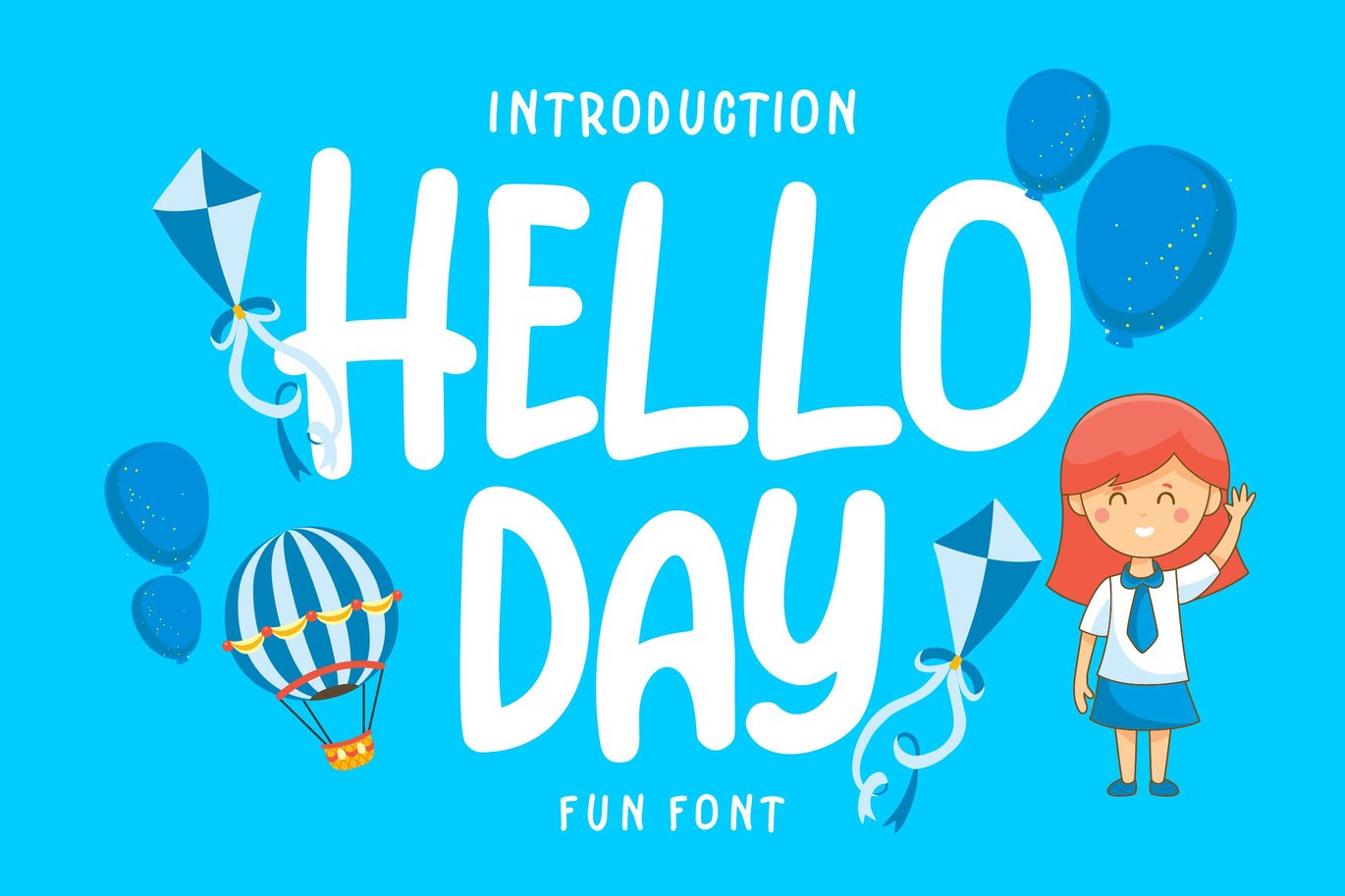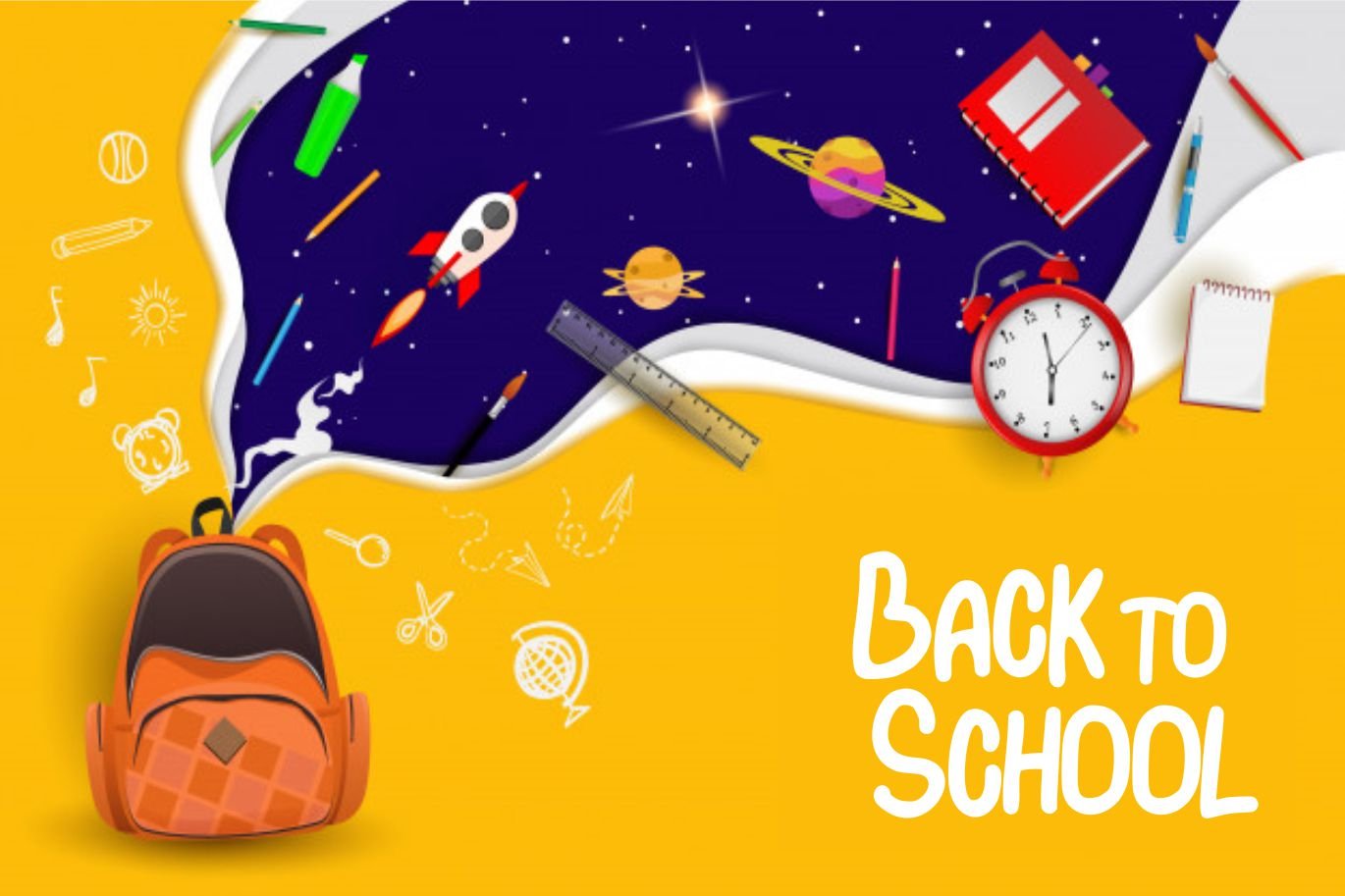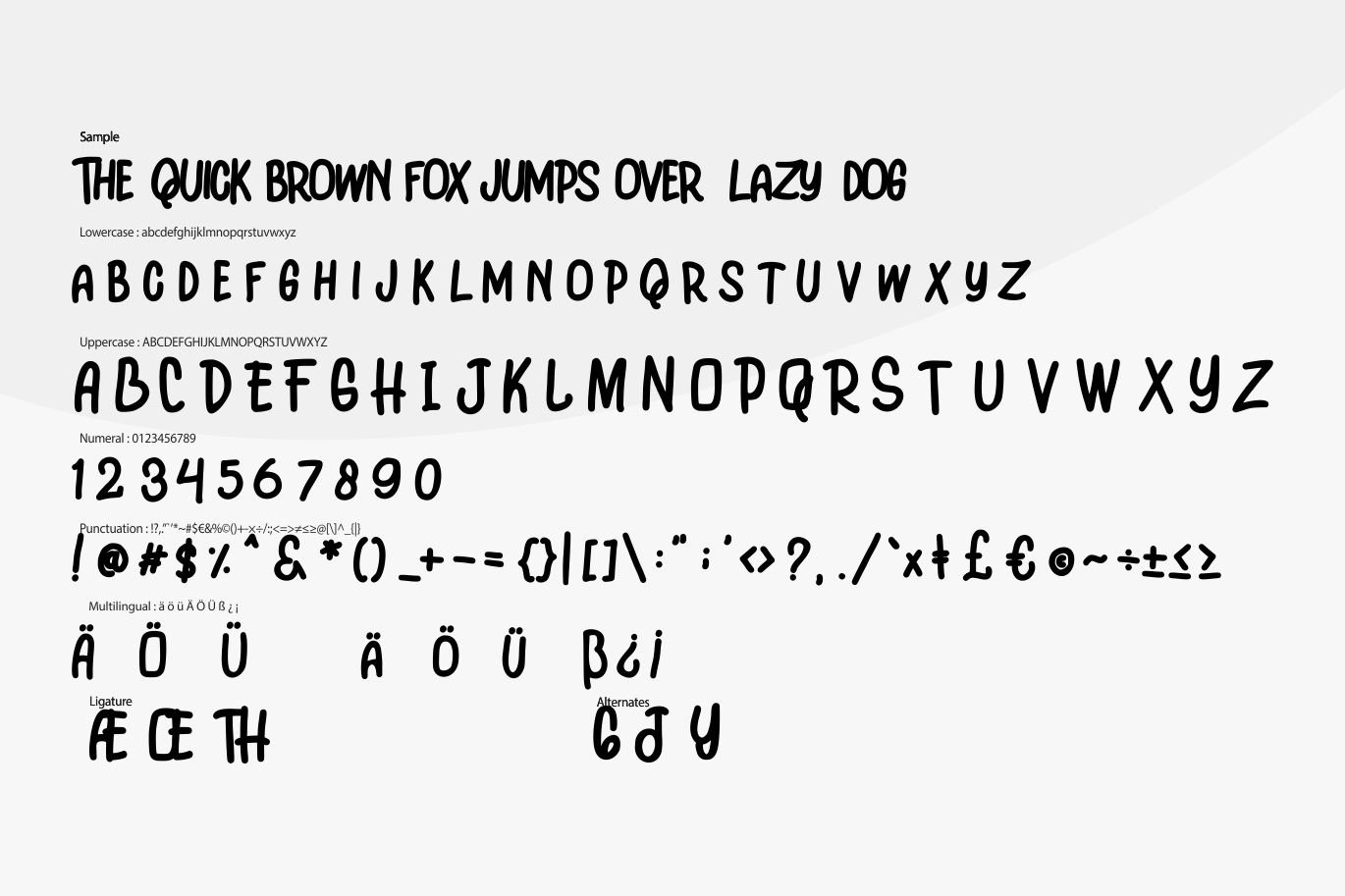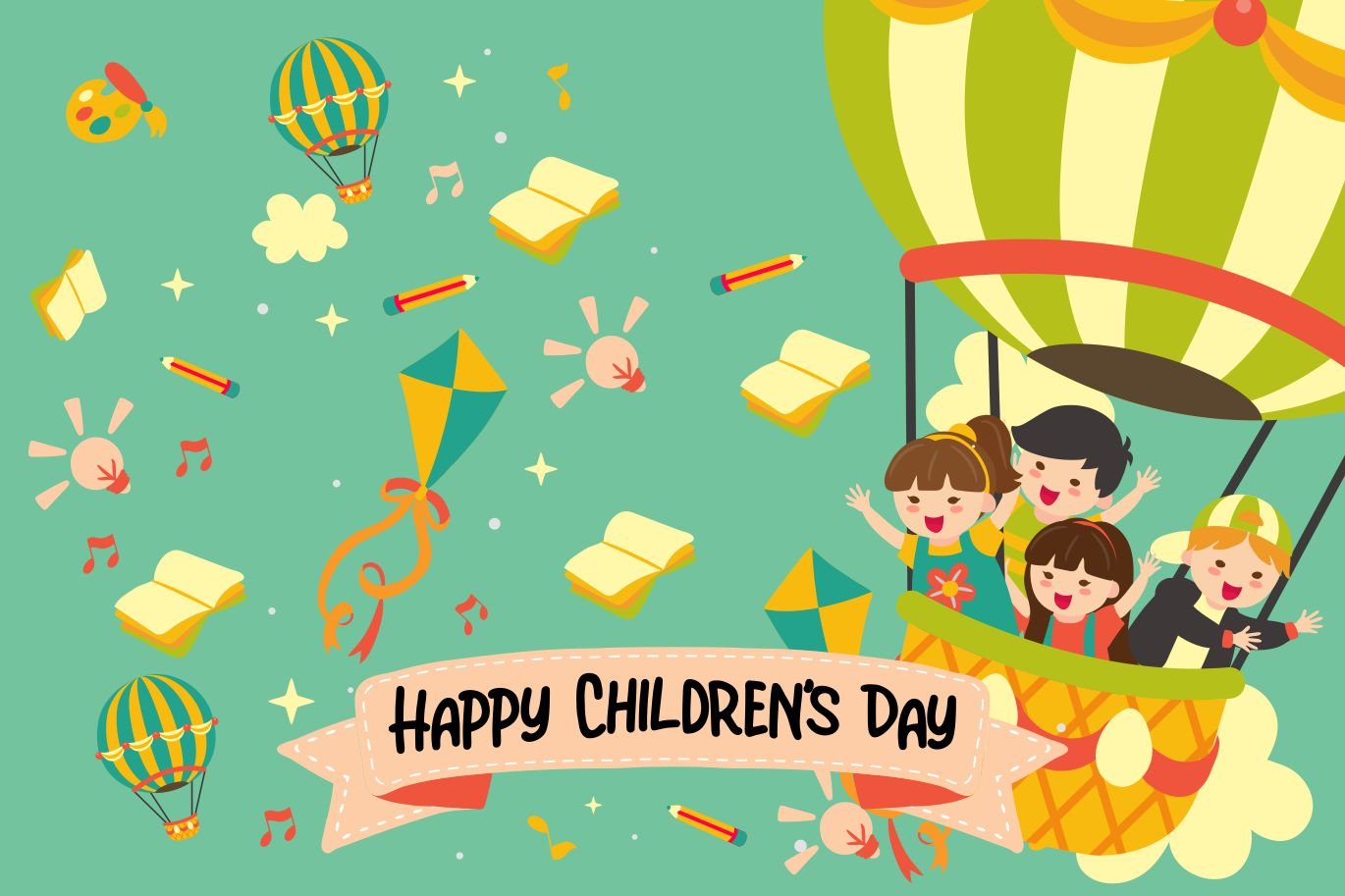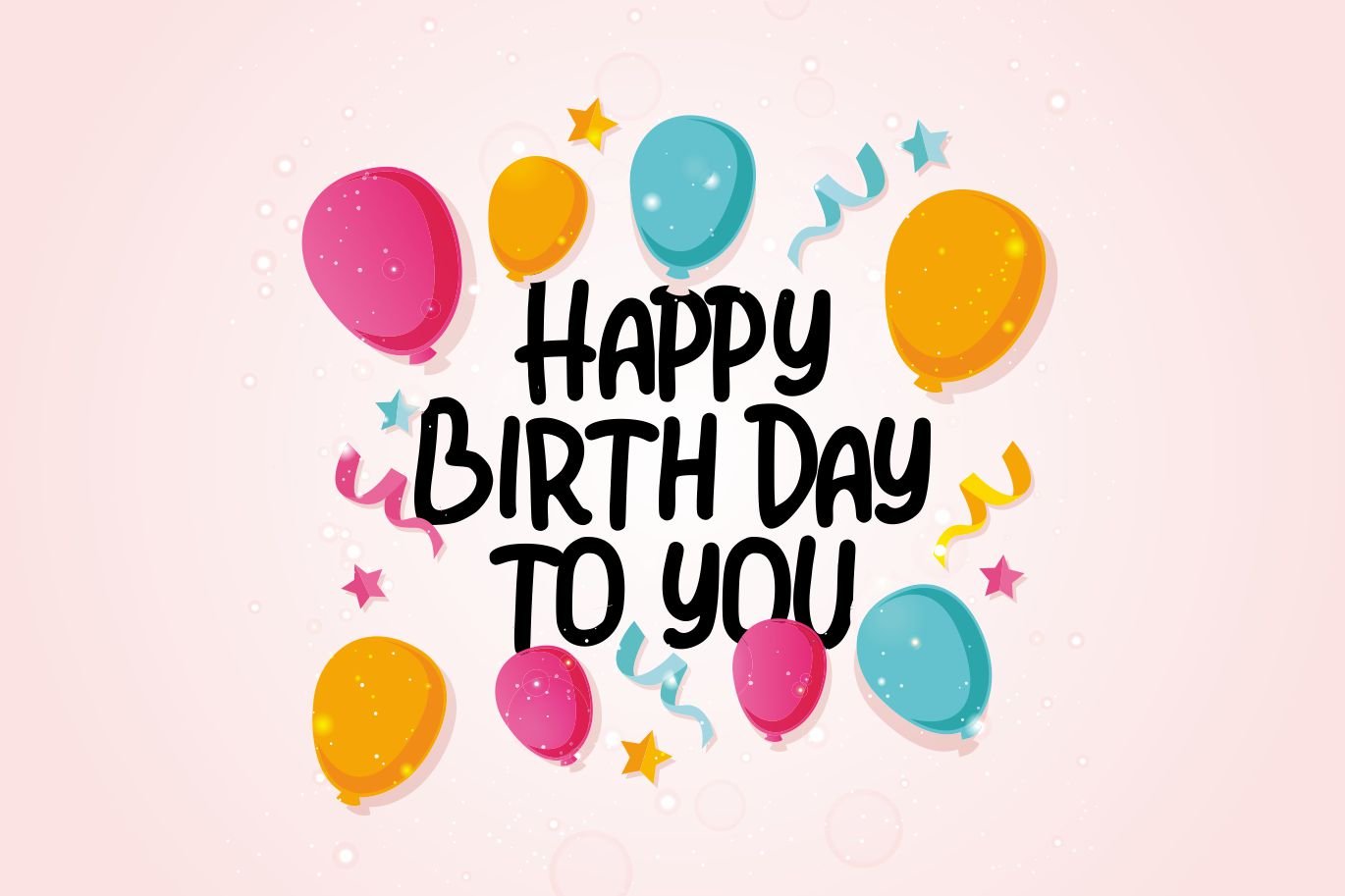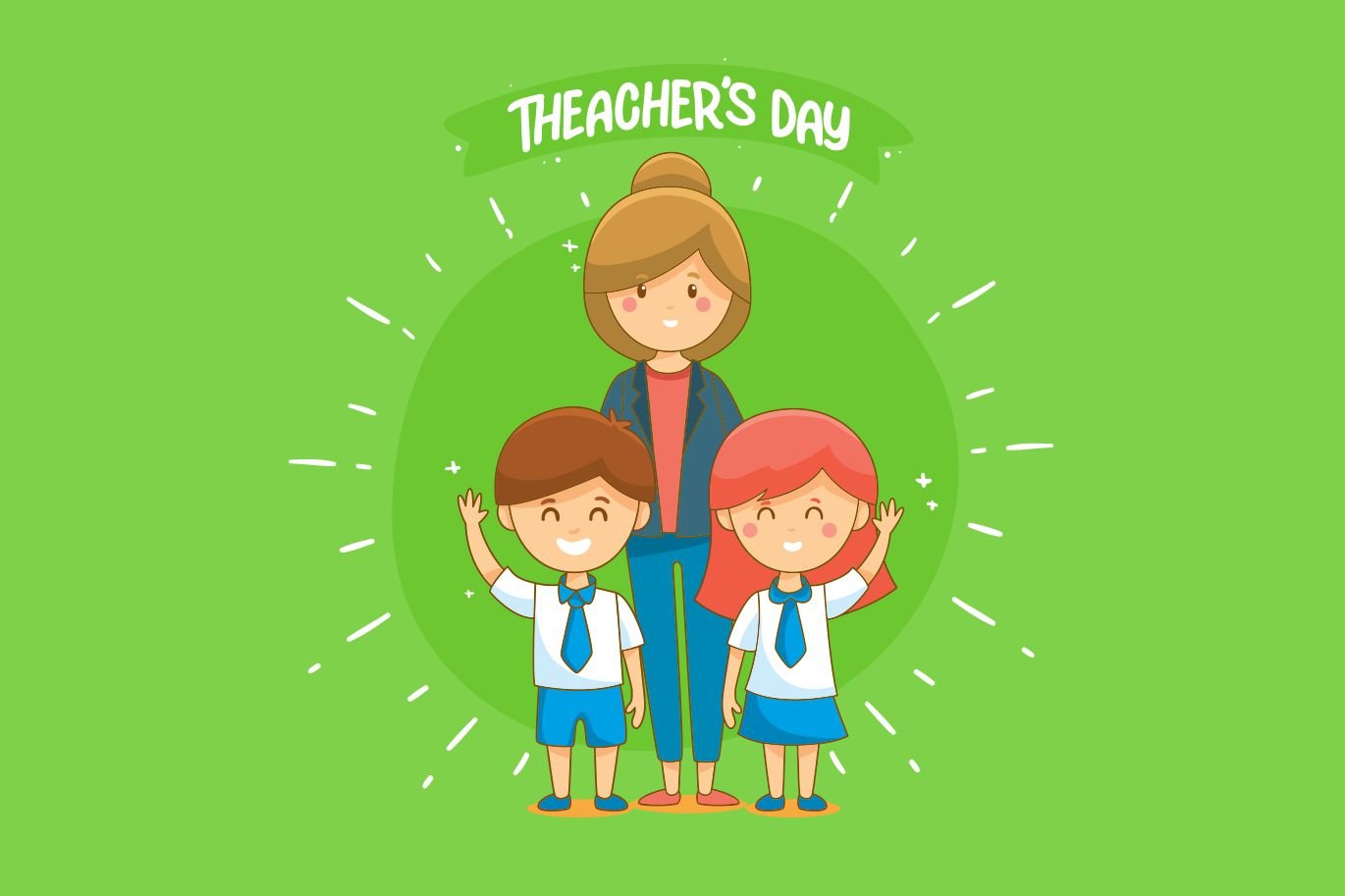
Helo Day | Kids Fun Font
Helo Day | Kids Fun Font with a Kids style, So beautiful on invitation like greeting cards, branding materials, business cards, quotes, posters, and more!